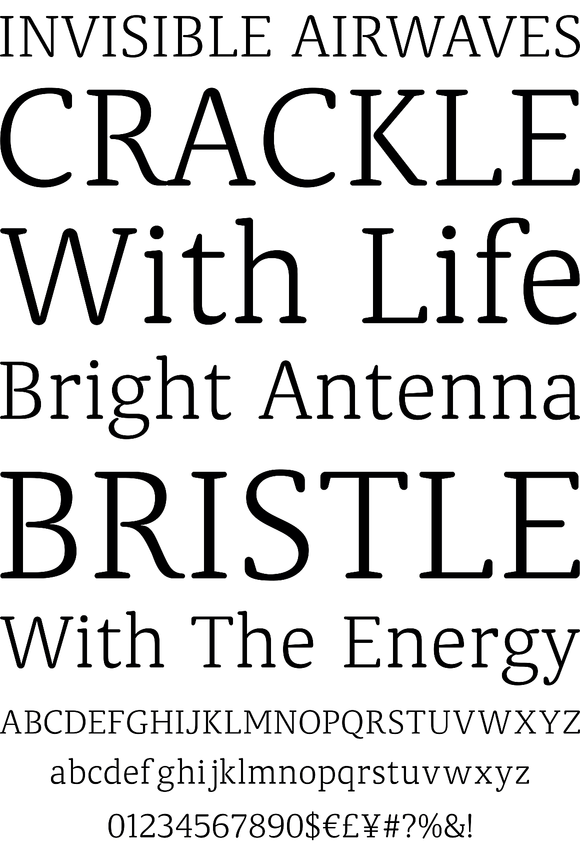
Classic Round. It's classic. It's round.Classic design; present-day roundness.
Versatile. Soft. Warm. Peaceful.For text and display use.
Classic Round. It's classic. It's round.Classic design; present-day roundness.
Versatile. Soft. Warm. Peaceful.For text and display use. When using Classic Round in small text sizes, it will be a reliable and legible workhorse. When using it in big display sizes, it will show its interesting details.Designed by Ben Blom in 2010.